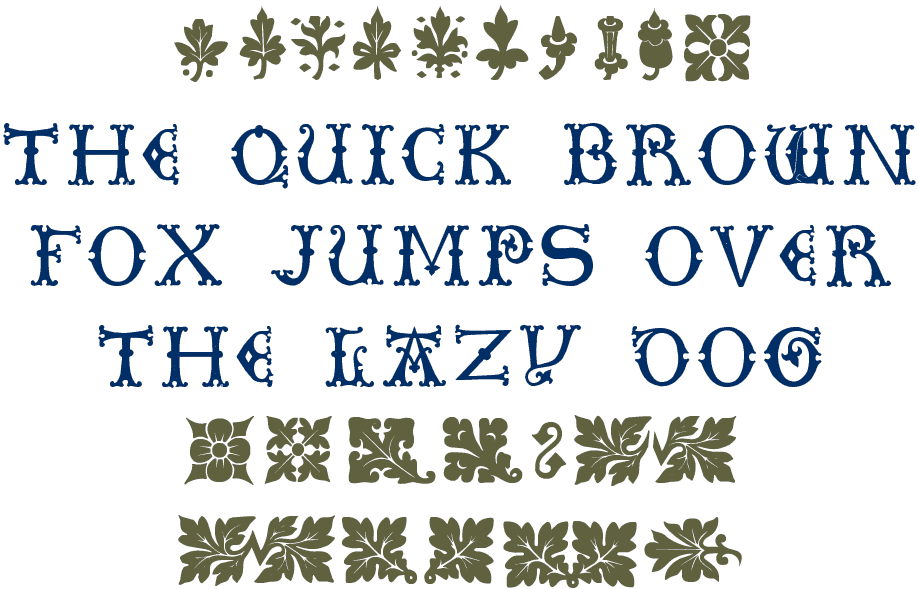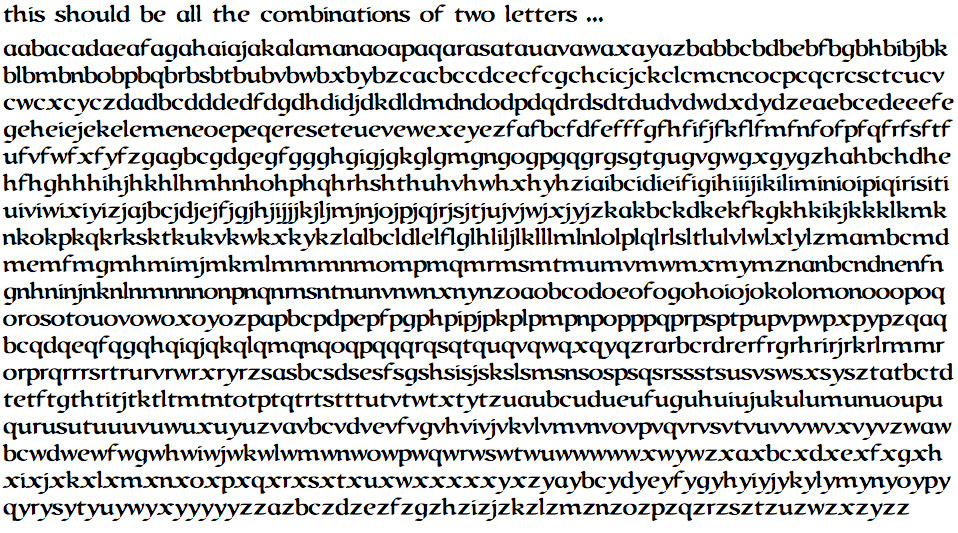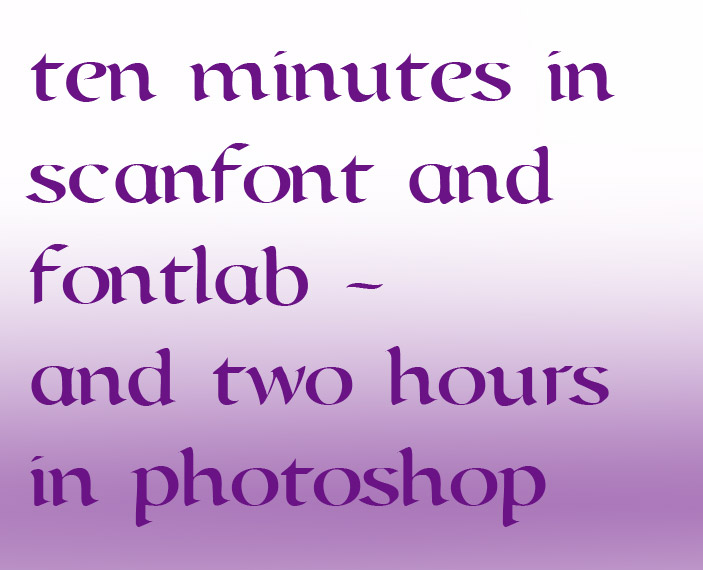
The ScanFont documentation suggets that, on a good day, downhill with the wind behind you, creating a font with ScanFont and FontLab can take as little as five minutes ... I was very skeptical about how this would translate into real world terms, but actually I just did one which took only about 10 minutes in ScanFont and FontLab, if you don't count false starts and a couple of dummy runs when I'd forgotten to specify the height and so on - oh, and a couple of hours tweaking the master in Photoshop first ... it's only 26 characters, lower case, there's plenty of tweaking and polishing left to do:
Then my copy of Alexander Nesbitt's collection Decorative Alphabets and Initials came today - it's from 1959, but it feels new! - and what a delight! ;-) To get a relationship with the book straight away, I scanned the alphabet that seemed simplest for the software, just simple solid outlines, good black colour, a complete alphabet, the Westminster Abbey brasses in plate 47 - I had a usable set of capital letters with a couple of mouse clicks, but for some reason the decorations took hours to get right ...
I made a 'J' too, there wasn't one, using the 'I' and the top right of the 'K', flipped and stretched, it took a bit of fiddling, but I think it's convincing in the end.